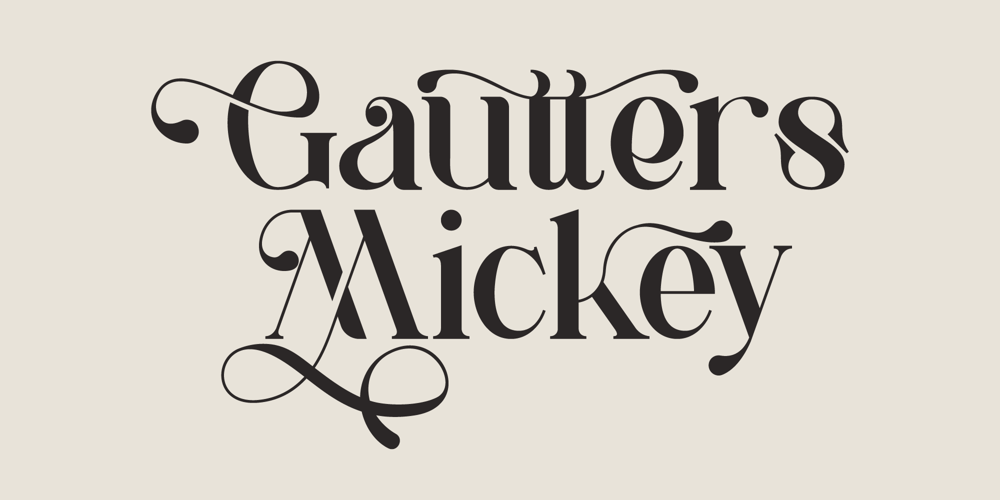
Gautters Mickey Font Family was designed by Irfan Hidayat and published by Creative17studio. Gautters Mickey contains 2 styles and family package options. Introducing :”Gautters Mickey” is a unique modern serif font. comes with a large selection of alternative characters and ligatures.The distinctive shape of each character makes this font even better for any design, both personal and corporate.Create your own unique design by using this font. very suitable for formal and informal use.Available in two types of styles: regular & italic.Features :1. standard character set2. multilingual support3. numbers and punctuation marks4. many ligatures and alternativesWhat are you waiting for, get this premium font right away.Free updates.Any questions? just ask.Thank you